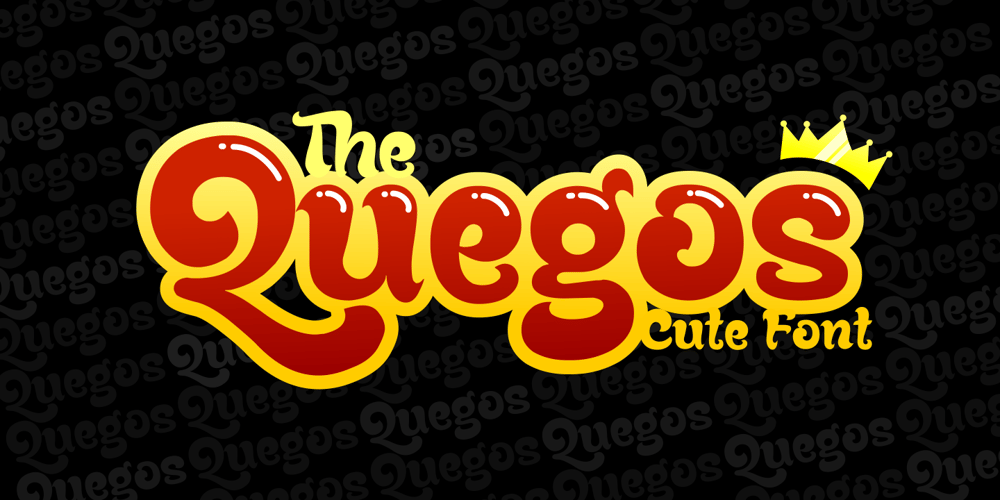
Quegos Font Family was designed by Ahmad Zulfikar Ali and published by ZetDesign. Quegos contains 1 styles and family package options. Quegos is a display font with a sleek yet bold look. make a strong impression. comes in the iconic bubble style with strong outlines and fat strokes. very suitable to create a big, bold logo for your business, work on a poster for an event, or whatever your project, and Perfect to create amazing headings, logos, menus, social media graphics, and many more.